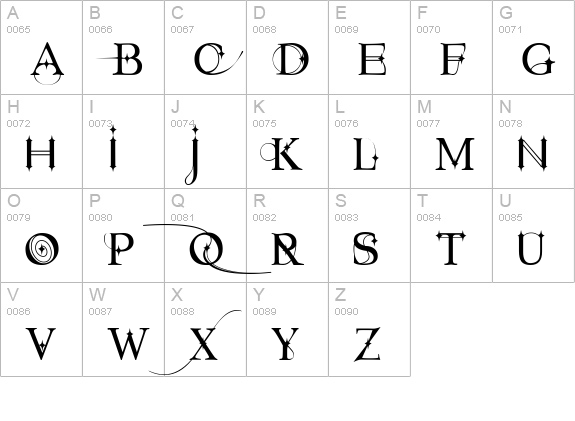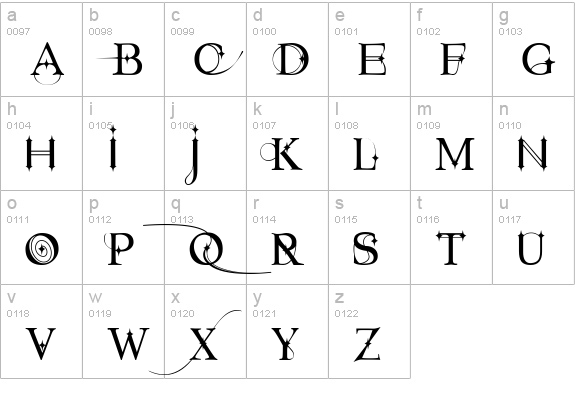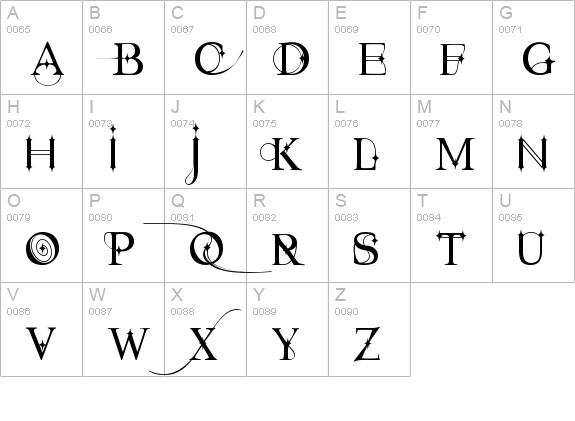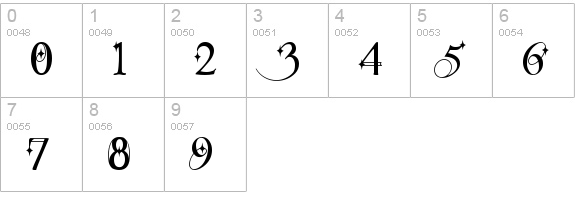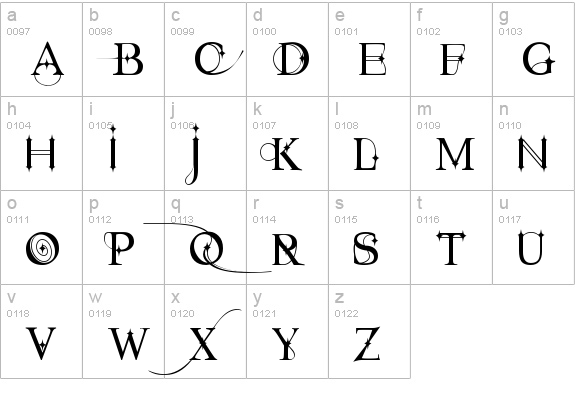
Starstruck Font Details
Introducing Starstruck, a mesmerizing font that will leave you starry-eyed with its celestial charm. This enchanting typeface captures the essence of the night sky, effortlessly blending elegance and whimsy into every letterform. With its delicate strokes and graceful curves, Starstruck invites you to embark on a typographic journey through the cosmos. Designed with creativity in mind, Starstruck is perfect for adding a touch of celestial magic to your design projects. Whether you're creating captivating headlines, designing dreamy logos, or crafting ethereal invitations, this font will elevate your creations to celestial heights. But that's not all – Starstruck comes with an added bonus: it's completely free! Yes, you read that right. This stunning font is freely available to download at FontsMarket.com, allowing you to bring the allure of the stars to your designs without breaking the bank. With Starstruck, you can unleash your imagination and let your creativity soar across the universe. Don't miss out on this stellar opportunity to add a celestial touch to your designs – download Starstruck today and let your projects shine like never before.